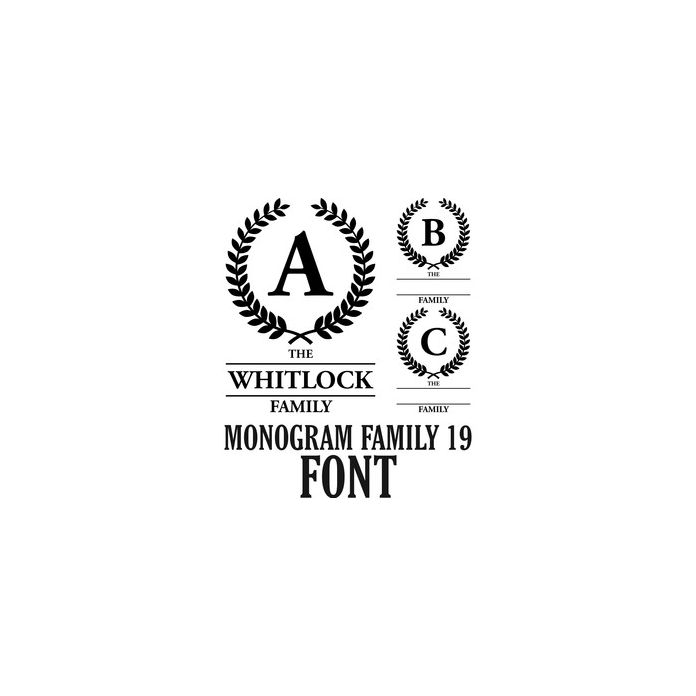
monogram family font 19
Includes all 26 letter monograms. Simply fill in a name and it's ready to cut and create with. These make great gifts or wedding decorations, etc...